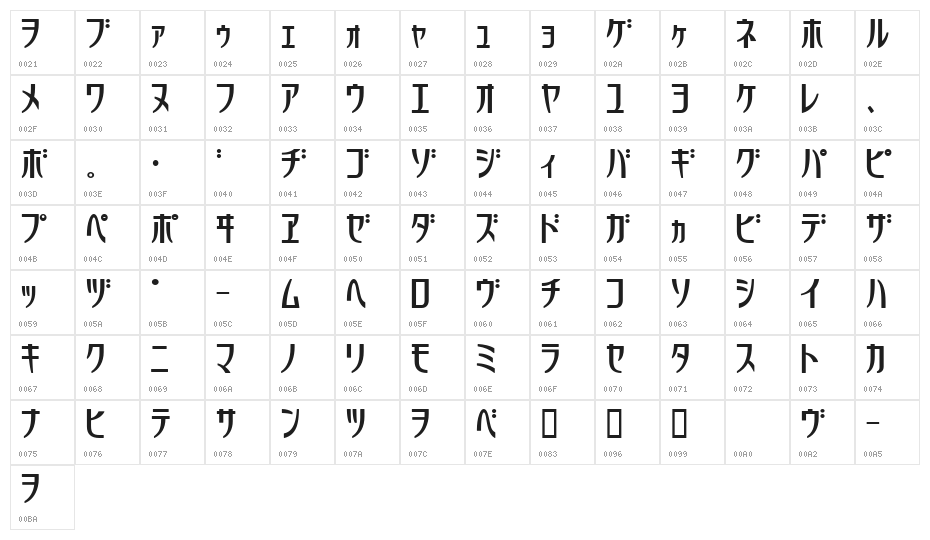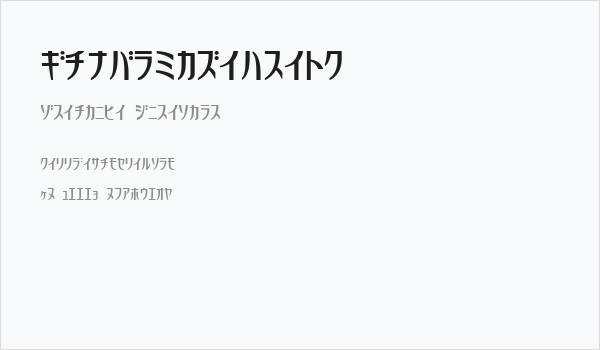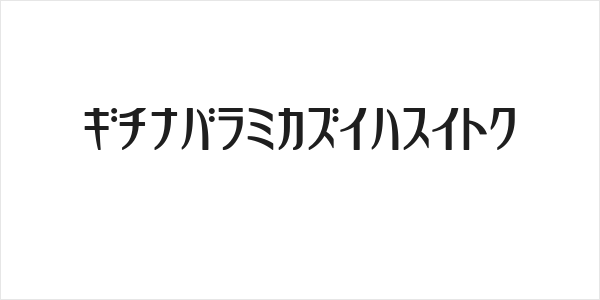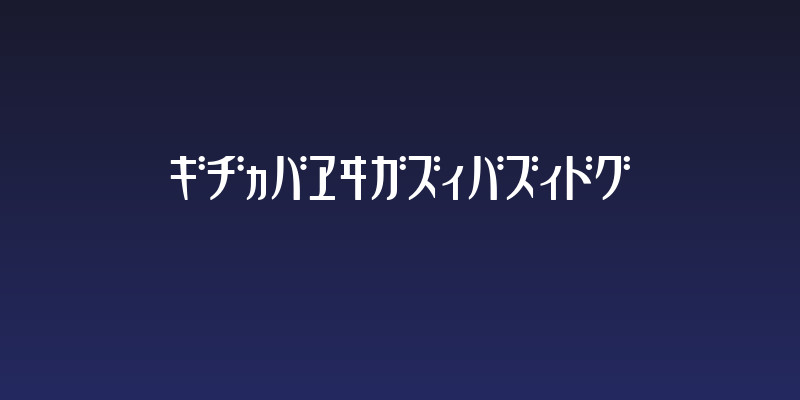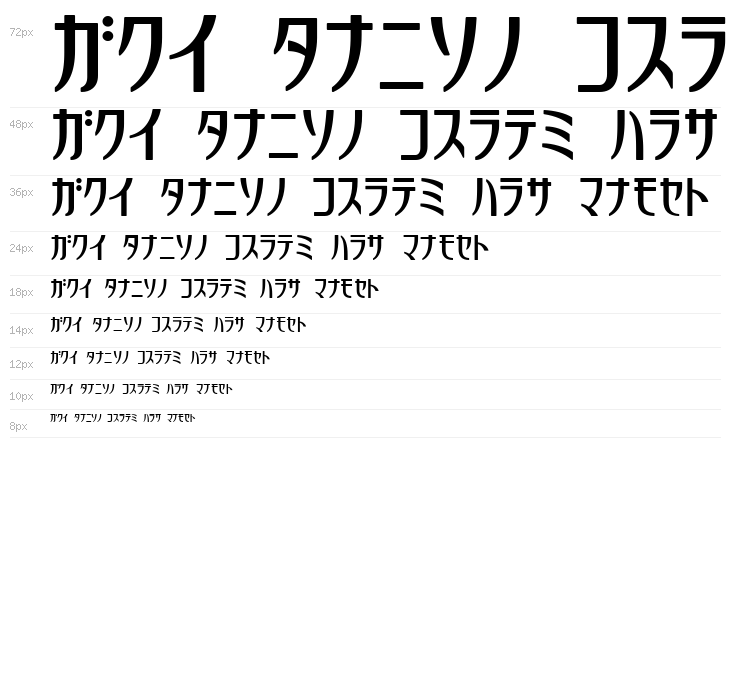
GauFontRefresh Font
This font features bold, geometric shapes with a modern aesthetic. The characters are uniform in width, creating a balanced and cohesive look. The strokes are consistent in thickness, giving the font a strong presence. The design is clean and minimalistic, making it suitable for contemporary projects. The characters have a slightly condensed appearance, which enhances readability while maintaining a stylish edge. This font is versatile, capable of being used in various design contexts where a modern and assertive typeface is needed.
Use CaseHeadlines, Logos, Branding
Proposed ProjectsIdeal for branding, advertising, headlines, and digital media where a modern and bold statement is desired.